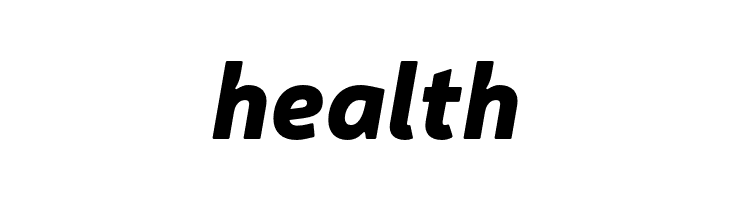
A bold, geometric font ideal for striking headlines and displays.
A bold, italic sans-serif font with a modern and dynamic style.
A bold, modern font with a dynamic and elegant style.
A bold, italic font with a dynamic and modern style.
A bold, heavy font with strong, uniform strokes for impactful designs.
A bold, modern sans-serif font with a strong, uniform appearance.
A bold and impactful font with thick, uniform strokes.
A bold, modern font with a strong geometric influence, ideal for impactful designs.
A bold, slanted font with a dynamic and modern style.
A bold, slanted typeface with a modern and dynamic style.